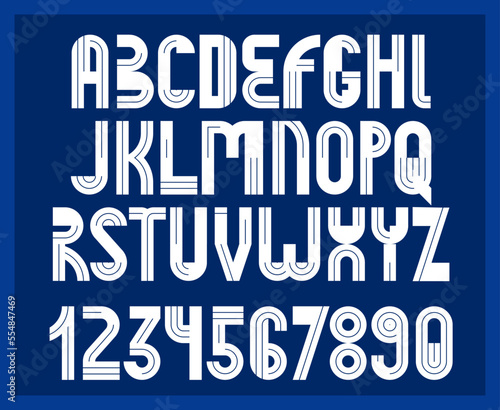
Abstract geometric original font vector typeset, logo creation alphabet minimal tech linear geometry style, stylish square unique tile letters set, uppercase and numbers set.